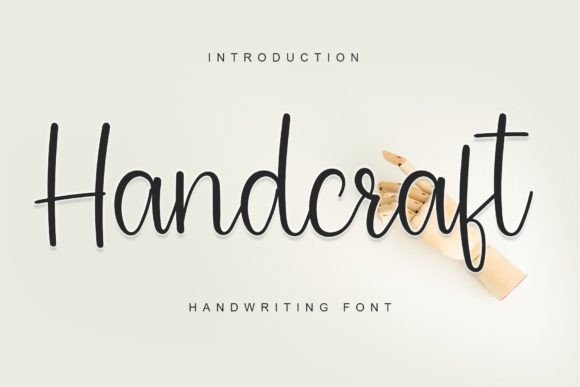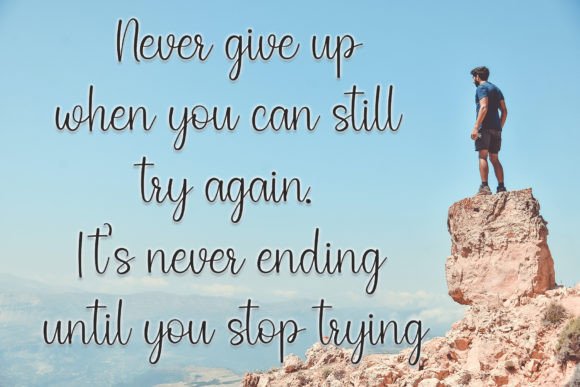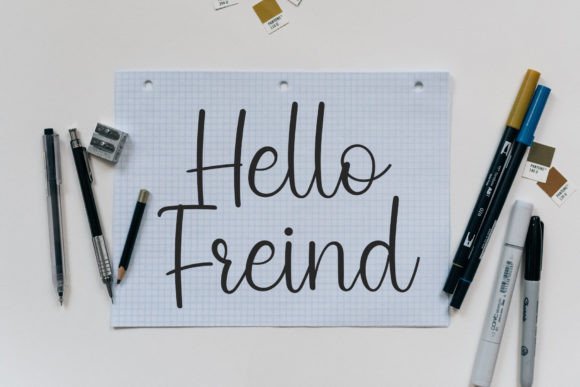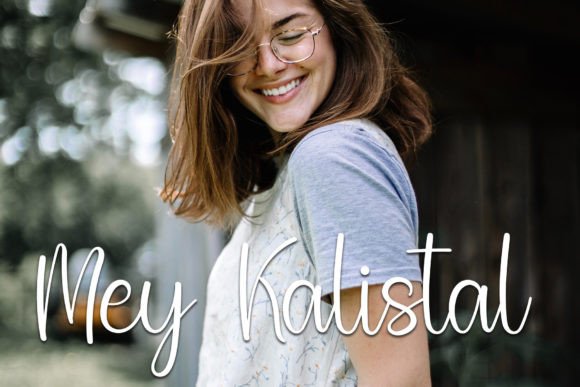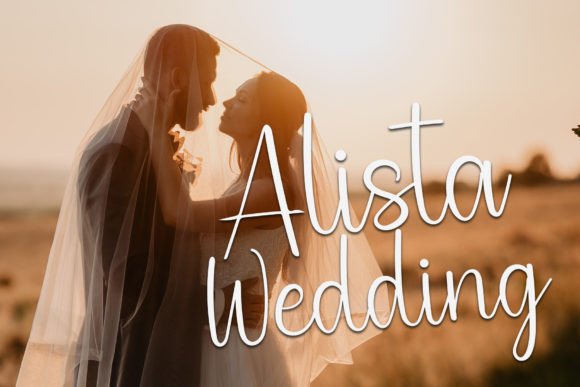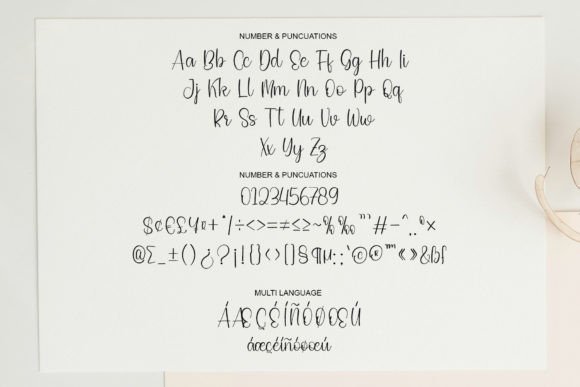
Handcraft Font
About Handcraft Font
Handcraft font is a stylish and delicate script typeface designed to add elegance and charm to your creative projects. Its dainty appearance makes it perfect for a variety of uses, especially when you want to add a graceful script touch. Whether you are designing logos, labels, wedding invitations, or greeting cards, Handcraft brings a refined yet approachable feel to your work.
Elegant and Stylish Design
Handcraft stands out with its smooth, flowing lines and carefully crafted characters that convey sophistication. The font’s dainty nature makes it well-suited for projects that require a subtle, artistic flair. Each letter has been thoughtfully designed to work harmoniously with others, ensuring your text looks fluid and balanced.
Versatile for Many Projects
This font is highly versatile and adapts beautifully to different types of design projects. Use Handcraft for wedding invitations to set a romantic and elegant tone. It also shines on greeting cards, labels, and branding materials where you want to express a personal, handcrafted style. The font’s stylish curves make any text visually appealing, whether on print or digital media.
A Script with Personality
Handcraft carries personality without being overwhelming. It’s delicate enough for intimate designs yet bold enough to be noticed. This balance allows it to work seamlessly across various applications, providing your projects with a distinctive yet timeless script style.
Key Features of Handcraft Font
• Stylish and dainty script style
• Perfect for logos, wedding invites, greeting cards
• Elegant, smooth, and balanced letterforms
• Adds a handcrafted, personal touch to your designs
Why Use Handcraft?
If you want to create projects with a refined and artistic script style, Handcraft is an excellent choice. It adds a charming and sophisticated look while maintaining readability and grace. Whether you’re a designer or a DIY enthusiast, this font will elevate your creative work.
In summary, Handcraft font is a beautiful, dainty script typeface that enhances your projects with its elegant and personal touch. Add Handcraft to your font collection to bring style and sophistication to your next design.